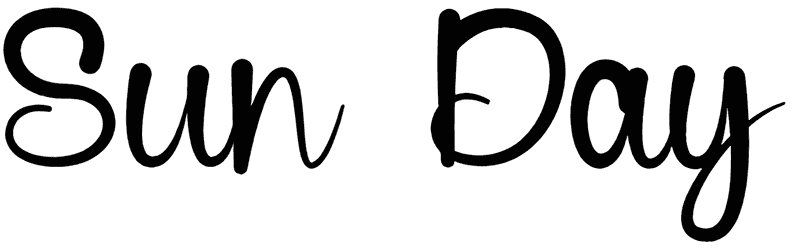
Sun Day Font
Any design project can benefit from the addition of Sun Day’s beautiful script font, which exudes a casual yet sophisticated air. Sun Day is perfect for a wide range of uses, including invitations, branding materials, and more, thanks to its graceful lines and handwritten feel.